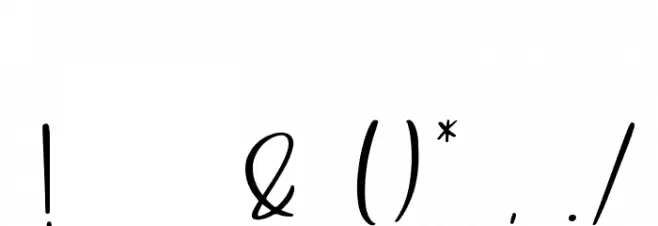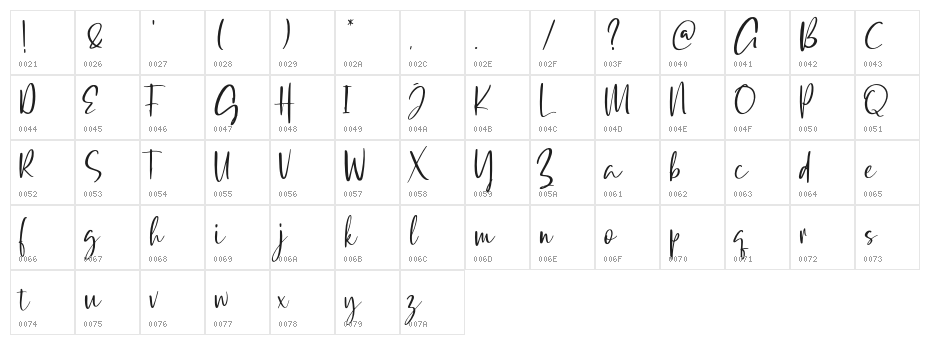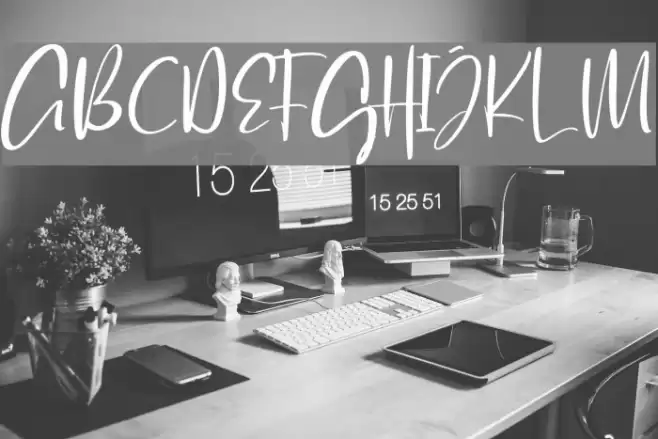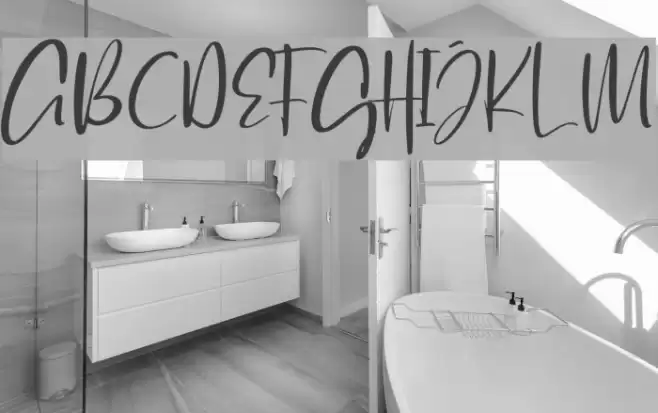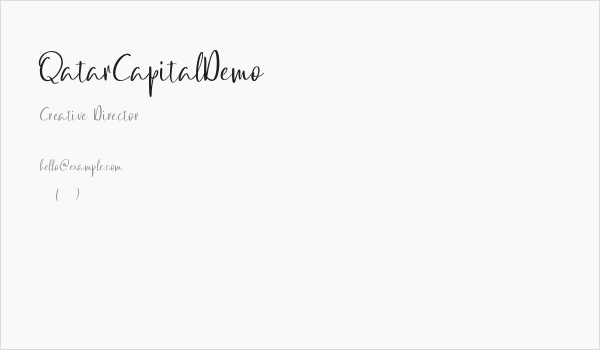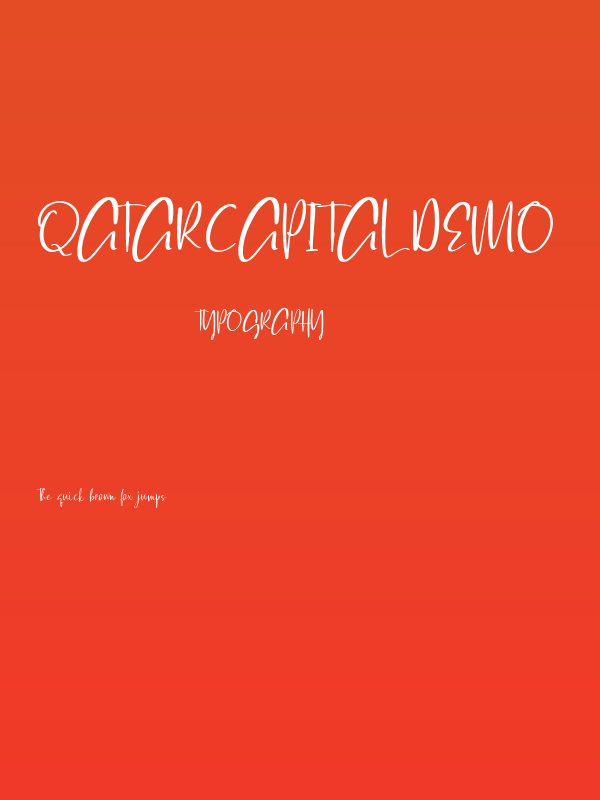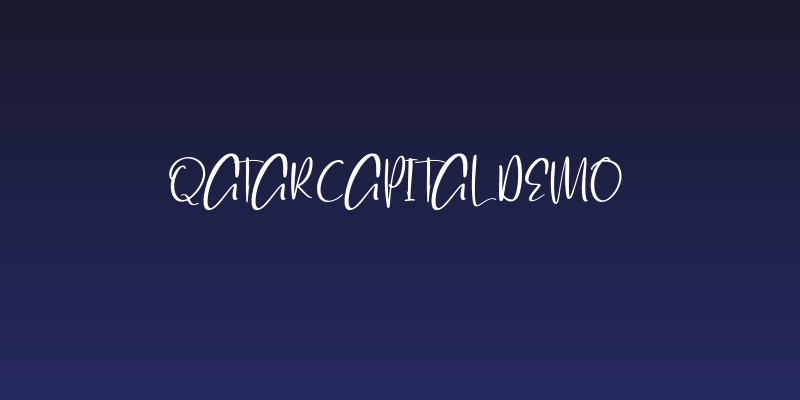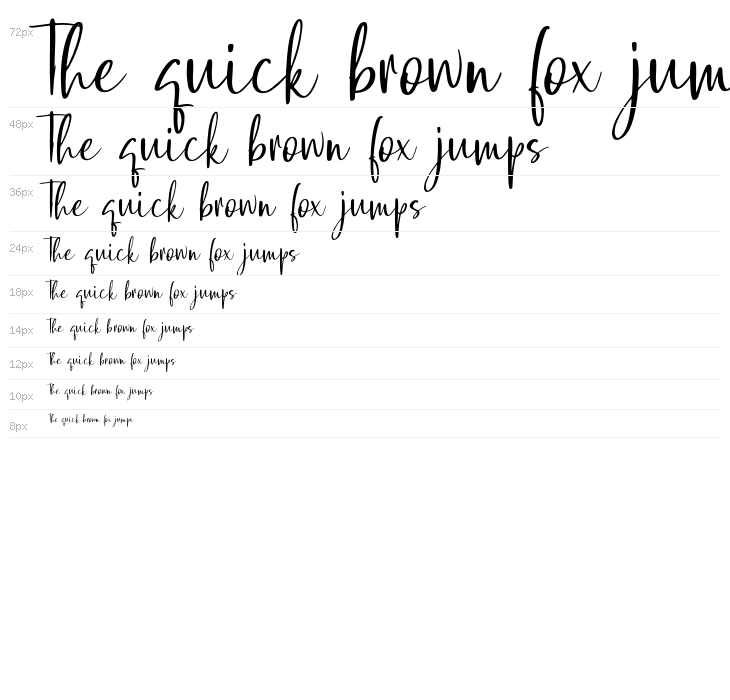
QatarCapitalDemo Font
QatarCapitalDemo Description
This font features an elegant and flowing script style that exudes a sense of sophistication and creativity. The letters are crafted with a smooth, cursive touch, giving them a handwritten appearance. The uppercase letters are bold and prominent, while the lowercase letters maintain a consistent fluidity. The characters are slightly slanted, adding to the dynamic and lively feel of the font. The special characters are designed to complement the overall aesthetic, maintaining the same graceful curves and strokes. This font is perfect for projects that require a personal and artistic touch.
| Proposed Projects | Ideal for wedding invitations, greeting cards, branding, and artistic projects. |